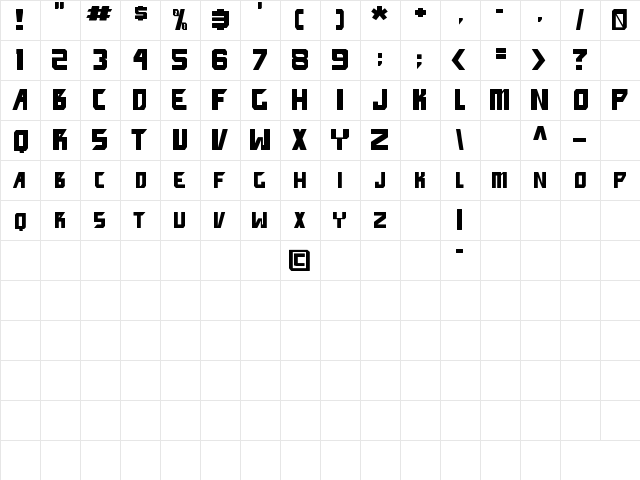
facepunch Bold
| Designer | Andeh Pinkard |
Design Context for facepunch Typeface
facepunch is a composed and adaptable typeface that performs quietly and consistently across a wide range of design contexts. The heavy weight commands attention and anchors typographic hierarchies.